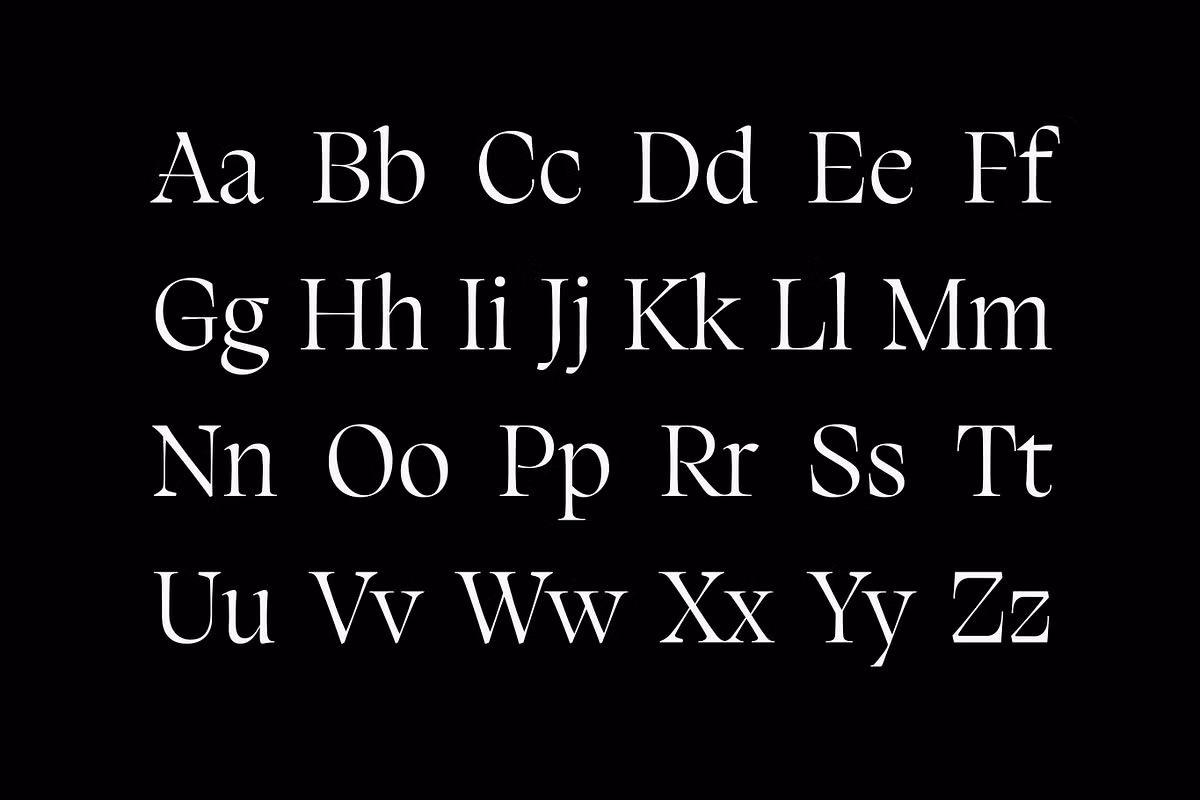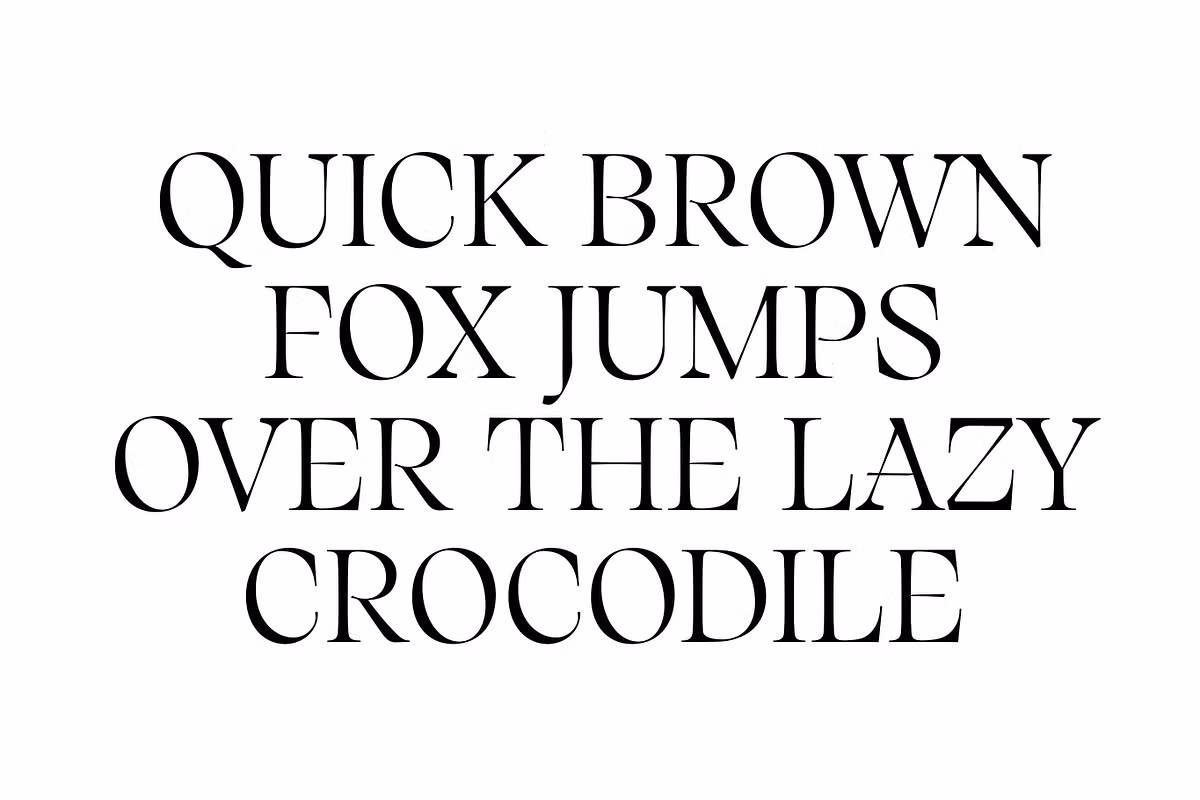
Introducing Silene: An Elegant Serif Typeface
Silene is a beautiful serif font that takes ideas from the elegant handwriting of the 20th century and the classic features of transitional fonts. It has a classic Roman style and dynamic italic letters, making it a great choice for designers and typographers. The modern touches in Silene, such as its tall lowercase letters, pointed ends, and strong contrast between thick and thin lines, make it perfect for many creative projects.
With its unique blend of old and new, Silene is a versatile font that can be used in a variety of ways, from traditional printing to modern digital design. Its classic look and modern feel make it a great option for anyone looking to add a touch of elegance and sophistication to their work. Whether you’re a designer, typographer, or just someone who loves beautiful fonts, Silene is definitely worth considering.
Design Style of Silene
The Silene design is all about being elegant and sophisticated. Its letters are carefully made to look great, with little details that make them stand out. One of the best things about Silene is that it’s really easy to read, thanks to its high x-height, which makes it perfect for using in both big headings and small text.
The way the letters end is sharp and modern, and the different thicknesses of the lines give the typeface a lot of energy, making it great for grabbing attention in titles and headlines. Overall, Silene is a beautiful and versatile font that can be used in many different ways.
Its classic look and feel make it perfect for designs that need a touch of sophistication, while its modern edges keep it fresh and exciting. Whether you’re using it for display or text, Silene is sure to make your design look great.
Key Features of Silene
- Two Styles: Silene comes in both Roman and Italic styles, providing versatility for various design needs.
- Extended Latin Support: Featuring over 550 glyphs, Silene supports a wide range of languages and typographic requirements.
- OpenType Features: The typeface includes essential OpenType features that enhance its usability and design flexibility.
- Precise Kerning: Silene is engineered with precise kerning, ensuring that letter spacing is visually appealing and consistent.
Use Cases for Silene
Silene is a really versatile font that works well in lots of different design situations. It looks great and has a classic feel to it, which makes it perfect for fashion projects where style and sophistication are key. You can use Silene for things like:
- Headlines and Titles: The striking appearance of Silene makes it an excellent choice for impactful headlines that draw the reader’s eye.
- Posters: Posters really benefit from the strong personality of Silene, making your designs jump out and get your message across in a clear and stylish way.
- Packaging: For companies that want to show they’re high-end and sophisticated, Silene can take their packaging to the next level, making their products stand out and look great on store shelves.
- Book Covers: Silene’s sophisticated style lends itself beautifully to book covers, setting a tone that intrigues potential readers.
- Logotypes: The unique letterforms of Silene can help create memorable logotypes that resonate with audiences and enhance brand identity.
Pairing Suggestions for Silene
When it comes to typography, pairing typefaces can elevate your design and create a harmonious balance. Here are a few pairing suggestions to consider when using Silene:
- Silene and Sans-Serif: Pair Silene with a clean sans-serif typeface like Montserrat or Lato for a modern contrast that highlights the elegance of Silene while maintaining readability.
- Silene and a Script Font: Combining Silene with a light script font can create a romantic and whimsical feel, perfect for wedding invitations or artistic projects.
- Silene with a Geometric Typeface: For a more contemporary look, pair Silene with a geometric sans-serif font like Futura or Avenir. This combination can provide a balanced, modern aesthetic.
Whether you’re working on a fashion brand, a magazine, or any other creative project, Silene is a great choice because it adds a touch of sophistication and style. The fact that it has a wide range of characters and was designed with care makes it a valuable tool for any designer. Silene is perfect for creating beautiful designs that stand out. Its elegance and modernity make it a great fit for many different projects. With Silene, designers can create stunning visuals that capture people’s attention. It’s a great font to have in your toolkit, especially if you want to add some style and sophistication to your work.